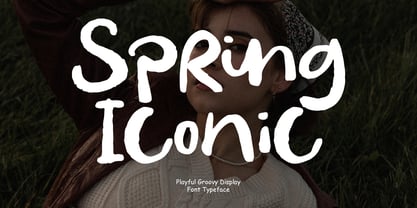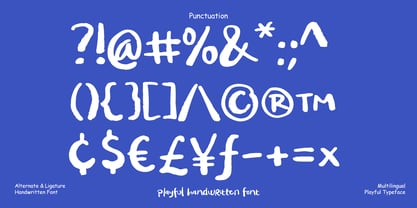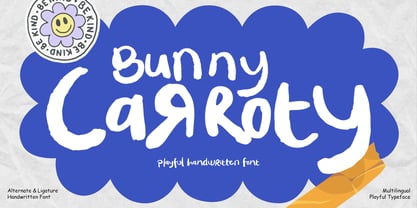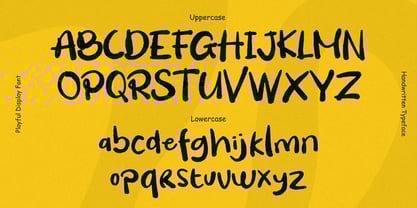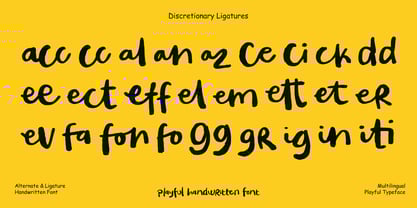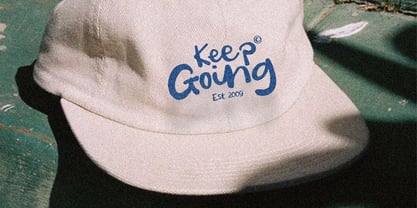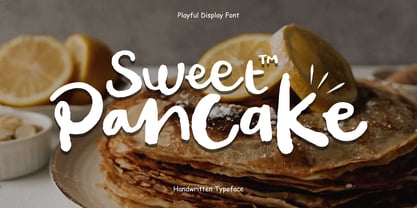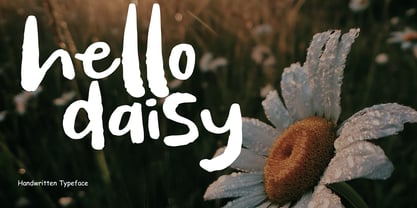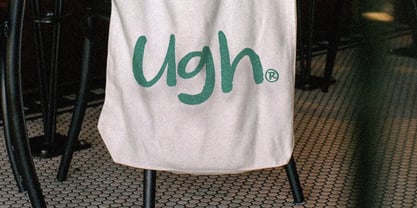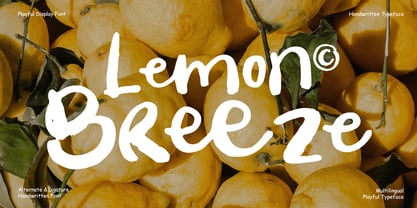
Bunny Carroty
by Inviline
The Bunny Carroty Font Family was designed by Virgiawan Listanto and published by Inviline. Bunny Carroty contains 1 styles.
Bunny Carroty is a playful handwritten font full of quirky charm and youthful energy. Its bold strokes and bouncy letterforms give it a spontaneous and cheerful feel—perfect for fun branding, kids’ products, cheerful quotes, digital planners, and crafty projects. Bunny Carroty comes with uppercase, lowercase, punctuation, multilingual characters, and fun alternates to keep your design fresh and expressive. Whether you’re creating greeting cards, posters, logos, or Instagram graphics, this font brings a personal touch that feels hand-drawn, authentic, and irresistibly cute in any creative context.
Bunny Carroty